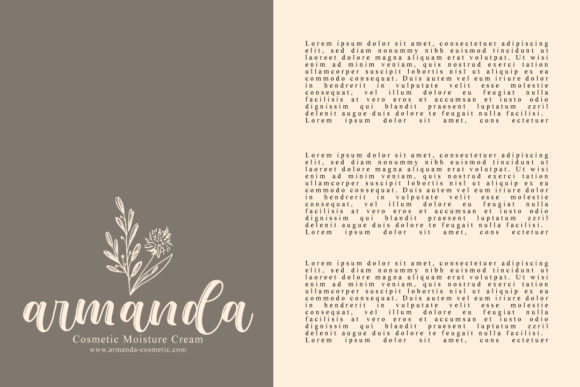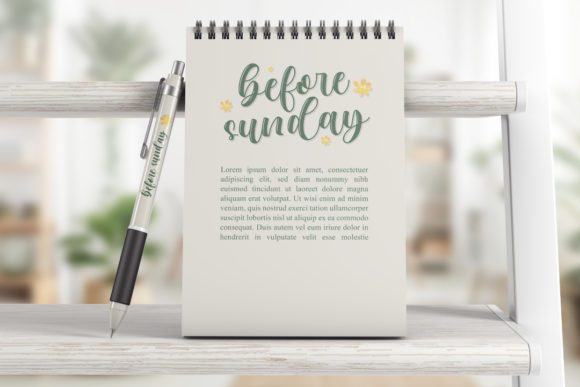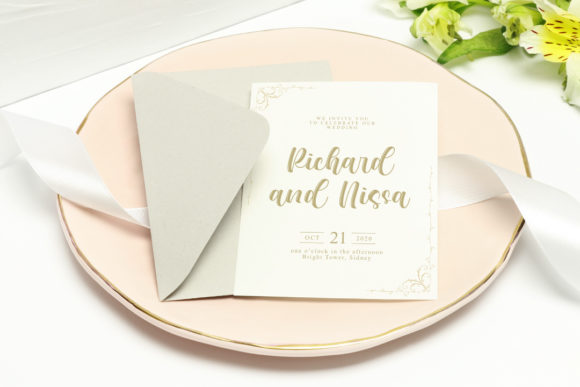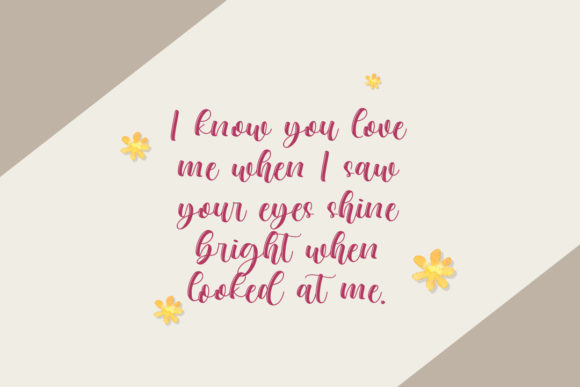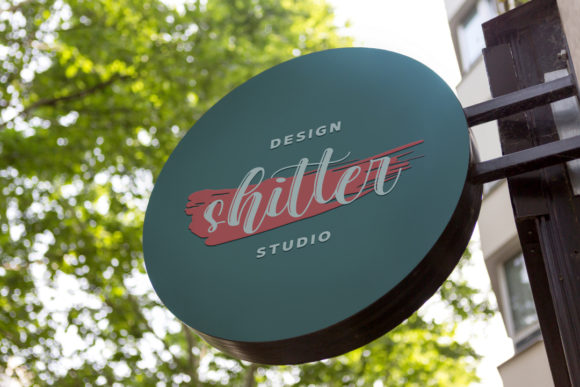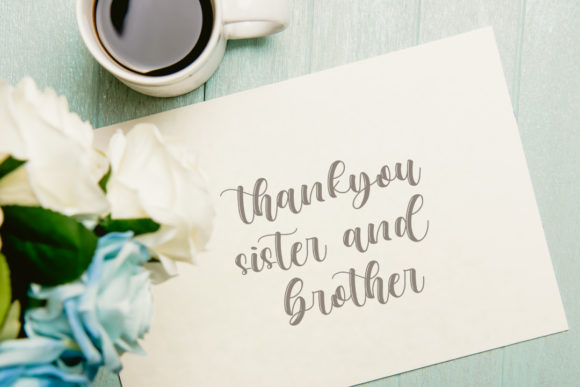
About Before Sunday Font
Before Sunday is an exquisitely distinct, delicate, and timeless handwritten font that adds a touch of charm and elegance to any design project. Its unique style and flowing characters make it a perfect choice for a wide array of creative ideas, from romantic wedding invitations to heartfelt thank you cards. Here are some ways to showcase the beauty of Before Sunday and incorporate it into your designs:
1. Wedding Invitations: Design enchanting and stylish wedding invitations with Before Sunday, setting the tone for a timeless and romantic celebration.
2. Thank You Cards: Craft heartfelt thank you cards, expressing gratitude with the delicate allure of Before Sunday.
3. Quotes and Typography Art: Create captivating typography art and quote posters, combining inspiring messages with the charming appeal of Before Sunday.
4. Greeting Cards: Design warm and artistic greeting cards for various occasions, captivating recipients with the elegant touch of Before Sunday.
5. Branding and Logos: Utilize Before Sunday for branding elements, infusing your business identity with a unique and captivating handwritten style.
6. Personal Stationery: Elevate your personal stationery with the distinctive beauty of Before Sunday, making each note or letter feel special.
7. Book Covers: Apply Before Sunday to book covers, adding an artistic and captivating touch to the visual representation of your literary works.
8. Social Media Graphics: Create eye-catching and engaging social media graphics with Before Sunday, captivating your audience with its timeless charm.
9. Magazine Headlines: Use Before Sunday for magazine headlines, adding an elegant and artistic flair to editorial layouts.
10. Event Invitations: Design exclusive and sophisticated event invitations, capturing the distinctive allure of Before Sunday for special gatherings.
11. Art Prints: Feature Before Sunday in art prints, producing enchanting and timeless pieces that resonate with art enthusiasts.
12. Packaging and Labels: Enhance product packaging and labels with the captivating beauty of Before Sunday, elevating the presentation of your offerings.
13. Website and Blog Headers: Implement Before Sunday in website banners and blog headers, infusing your online platform with charm and elegance.
14. Signage and Displays: Utilize Before Sunday for signage and displays, making an artistic statement in various settings.
15. Invitations and Announcements: Create charming and memorable invitations and announcements, embracing the timeless allure of Before Sunday.
The distinct and flowing nature of Before Sunday’s characters make it a versatile font that complements a wide range of designs. Its delicate beauty and elegant touch will leave a lasting impression on your audience and elevate your designs to new levels of sophistication and charm. Whether used for formal events or creative projects, Before Sunday will add a touch of timeless elegance to your designs and create an enchanting and captivating visual experience for your audience.